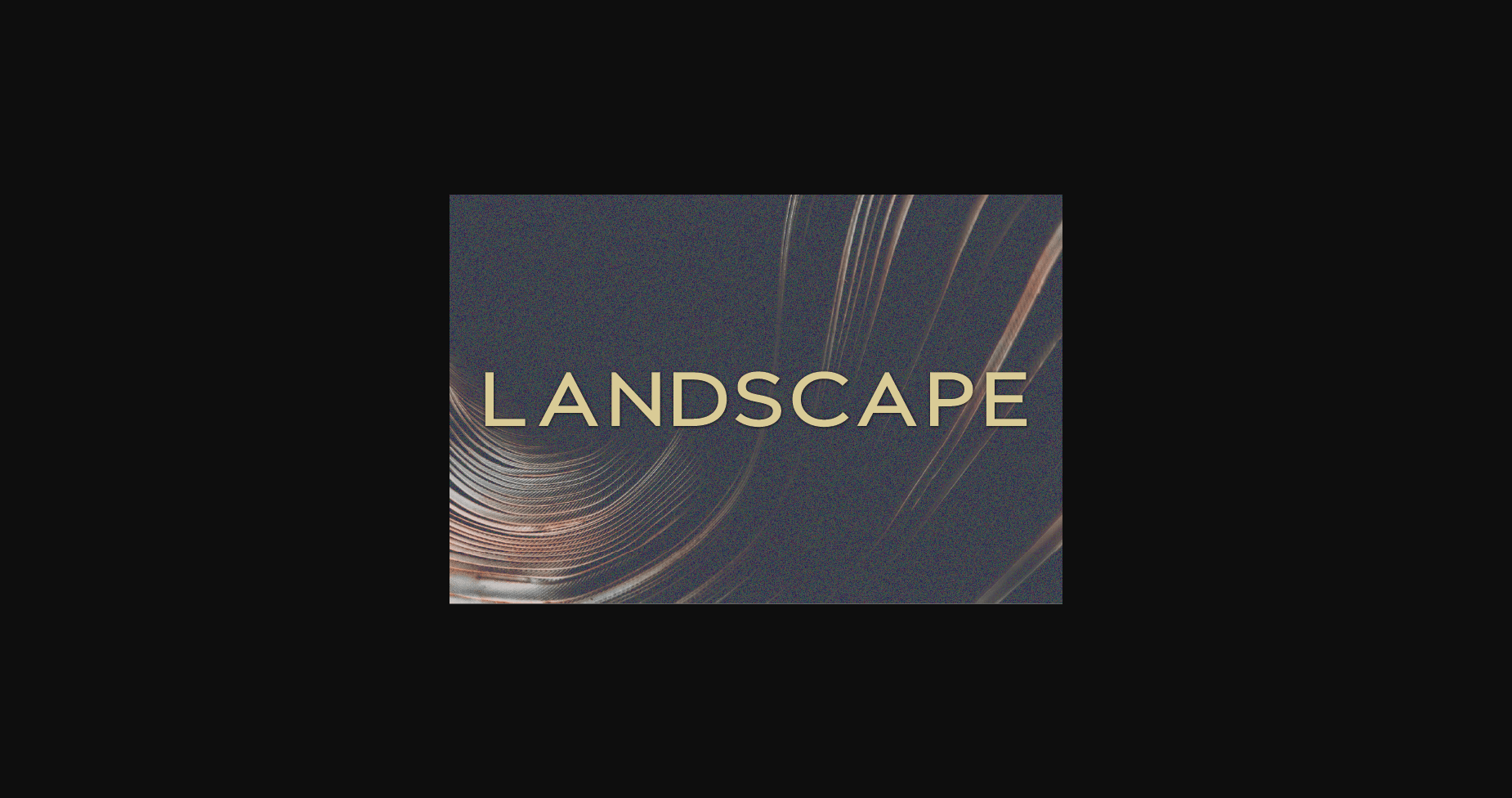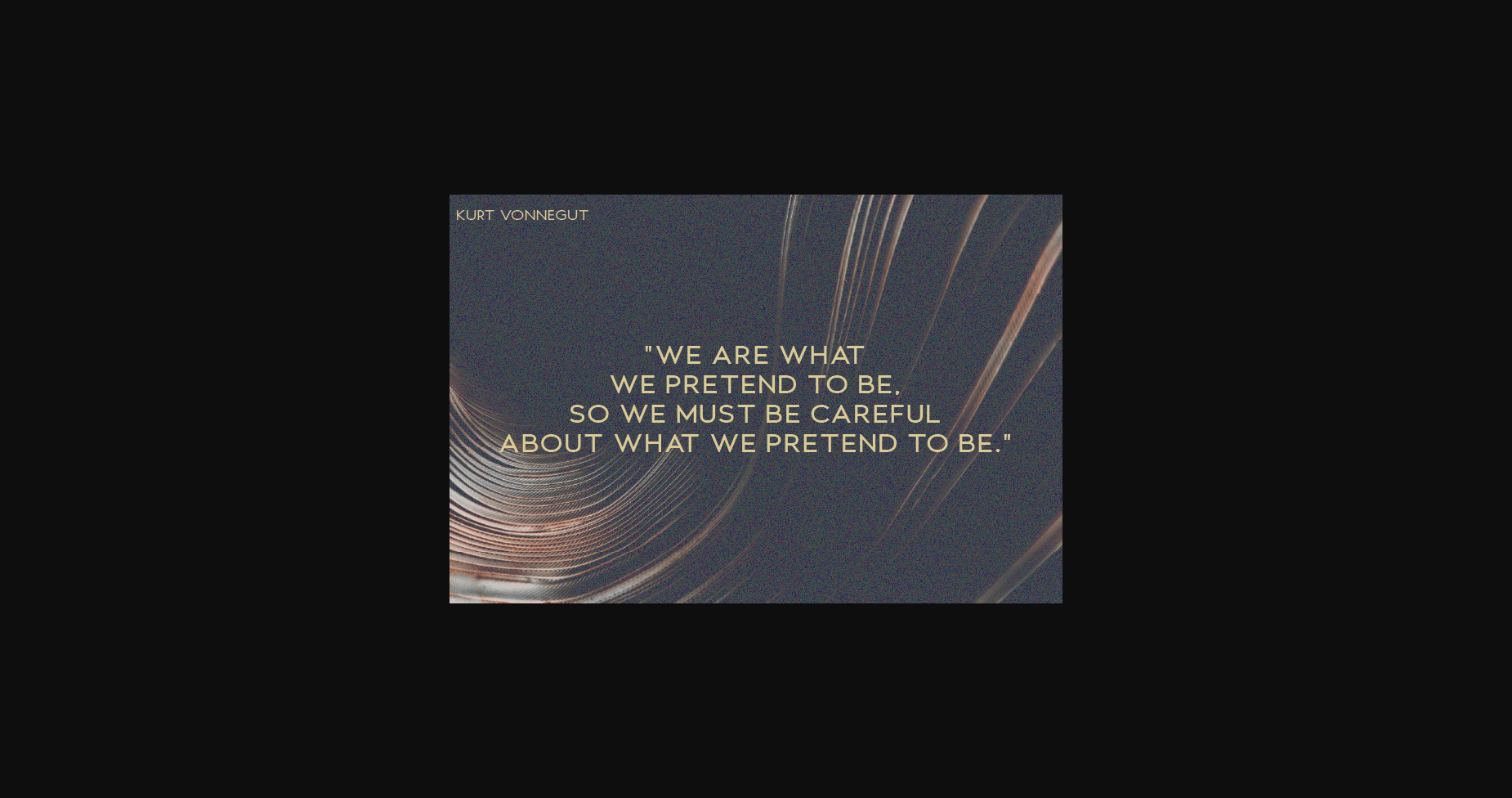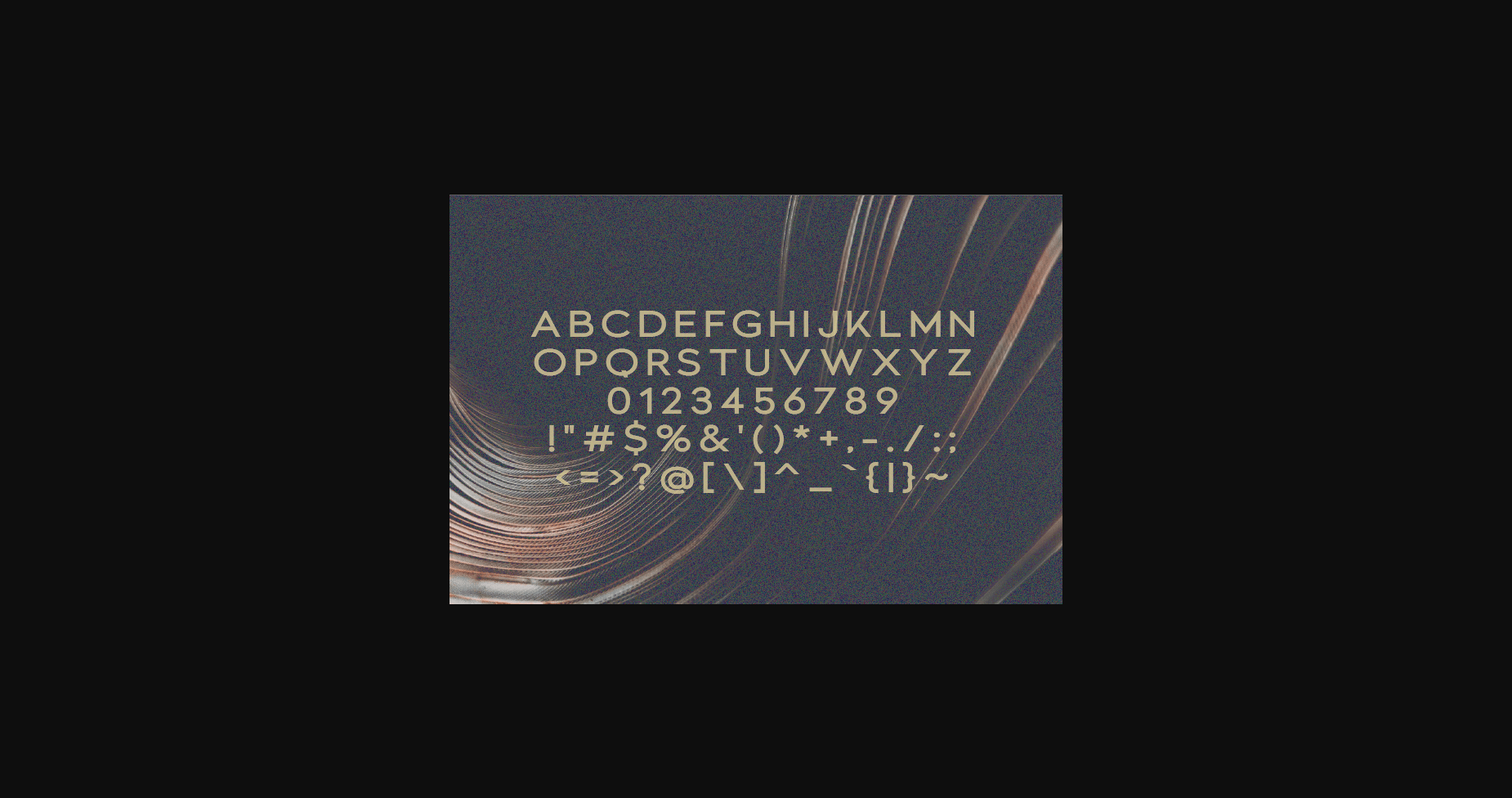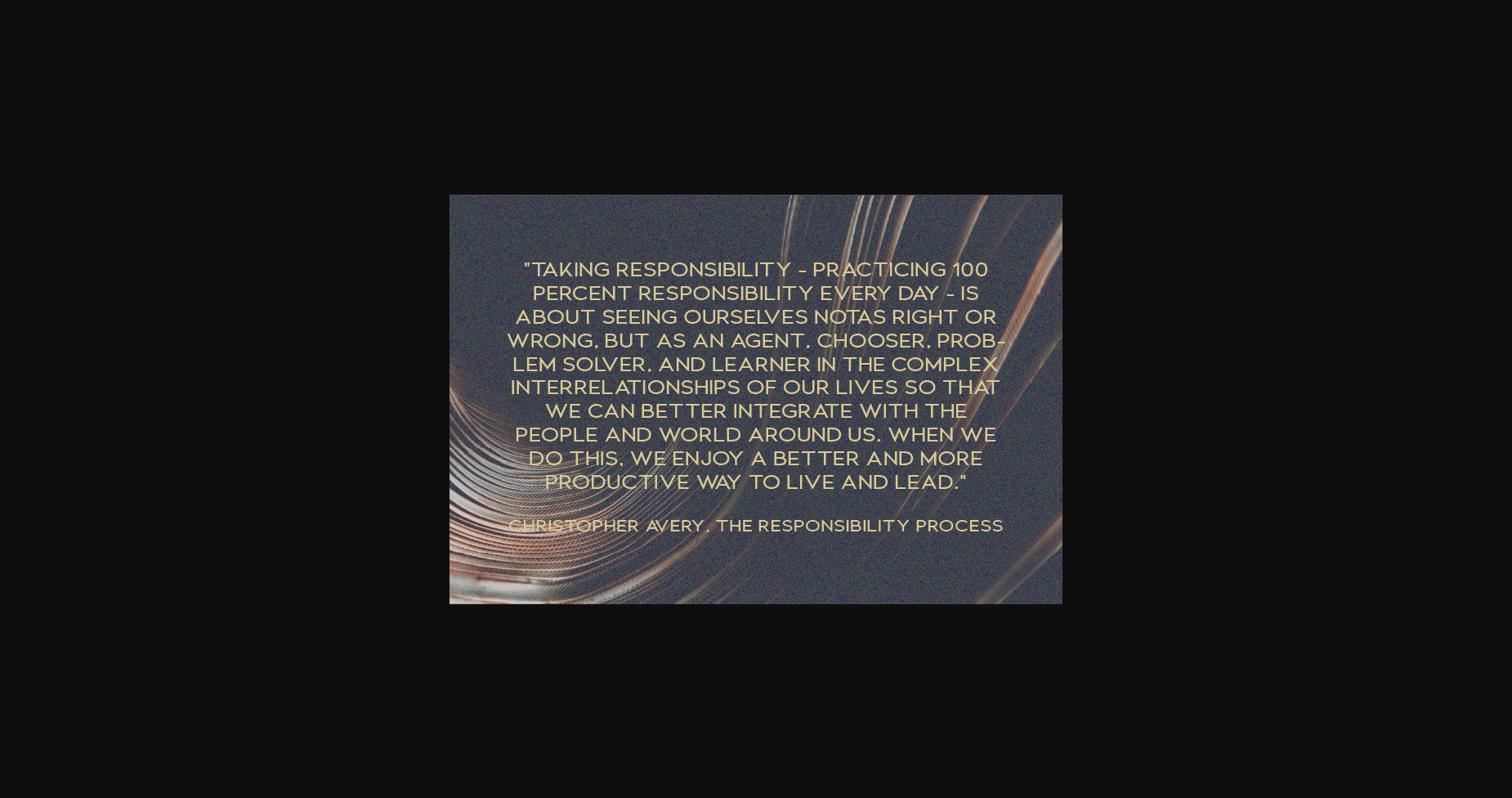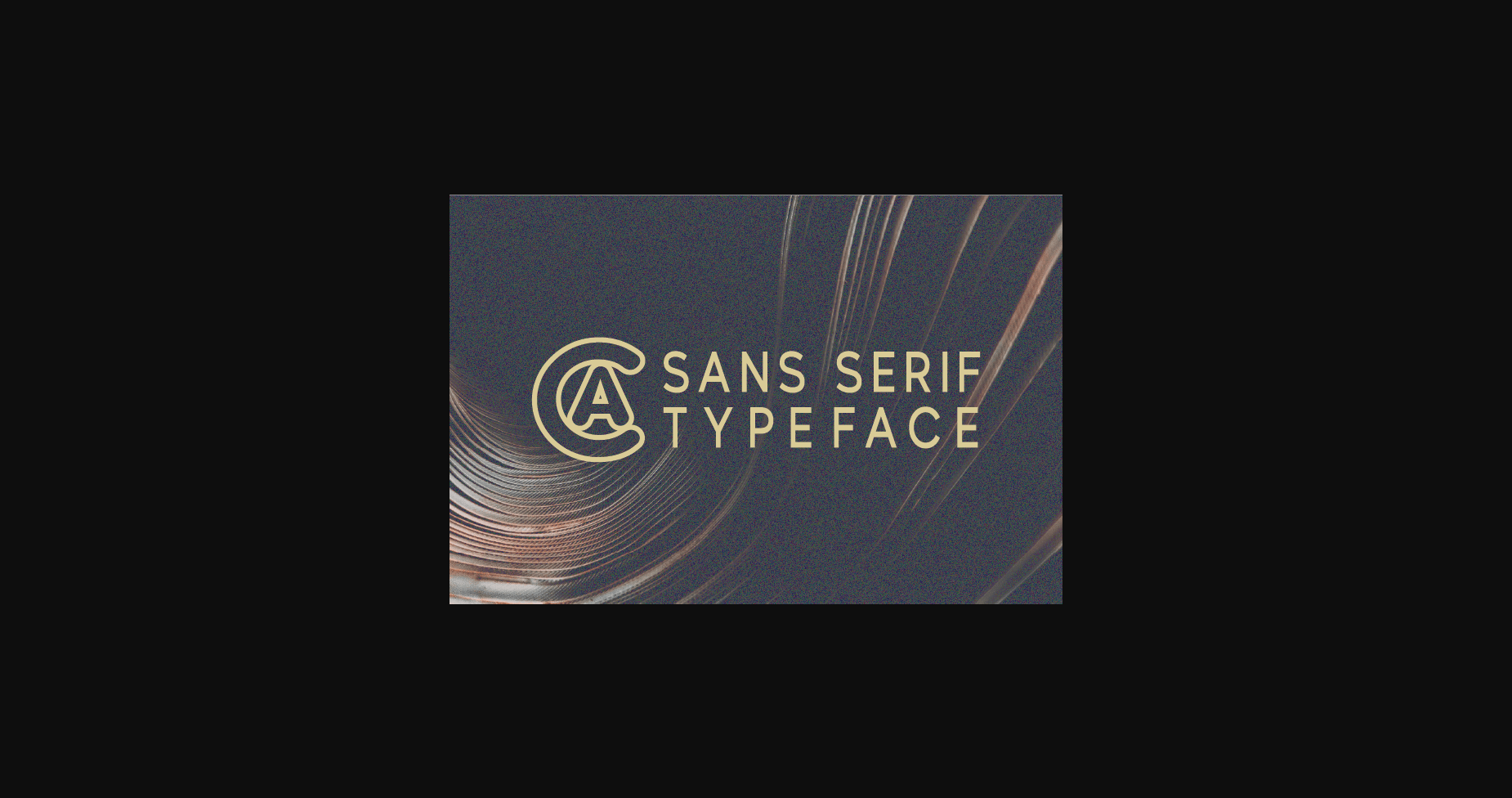
Landscape Font
About Landscape Font
Landscape is a modern, classy sans serif typeface. Extremely versatile, this typeface is perfect for logos, weddings, invitations, quotes, advertisements, print, magazines, and more!